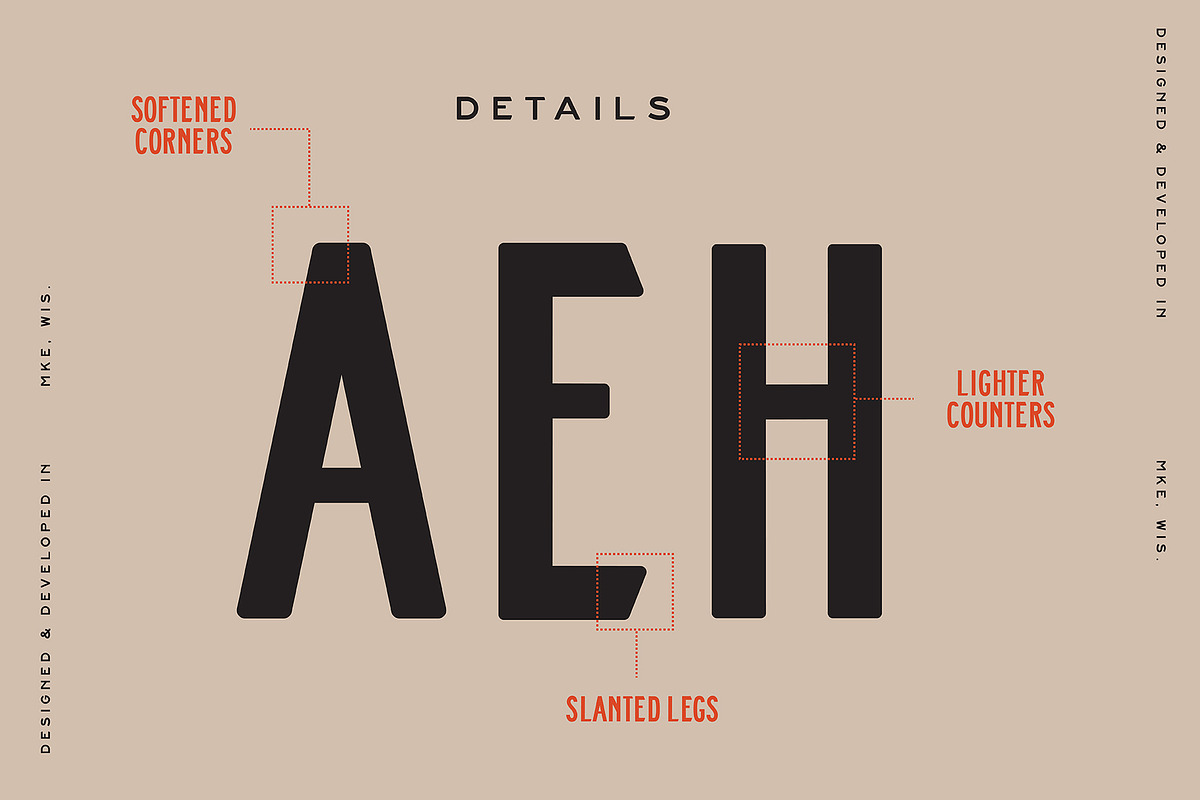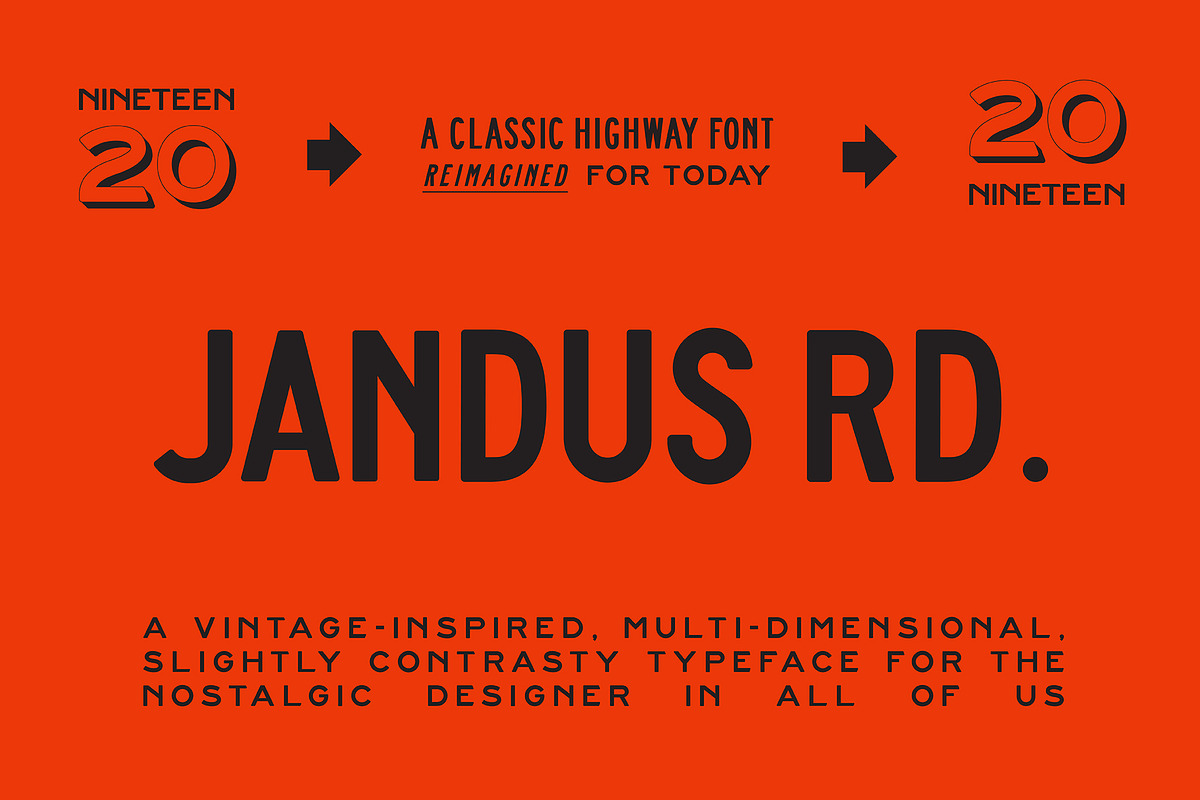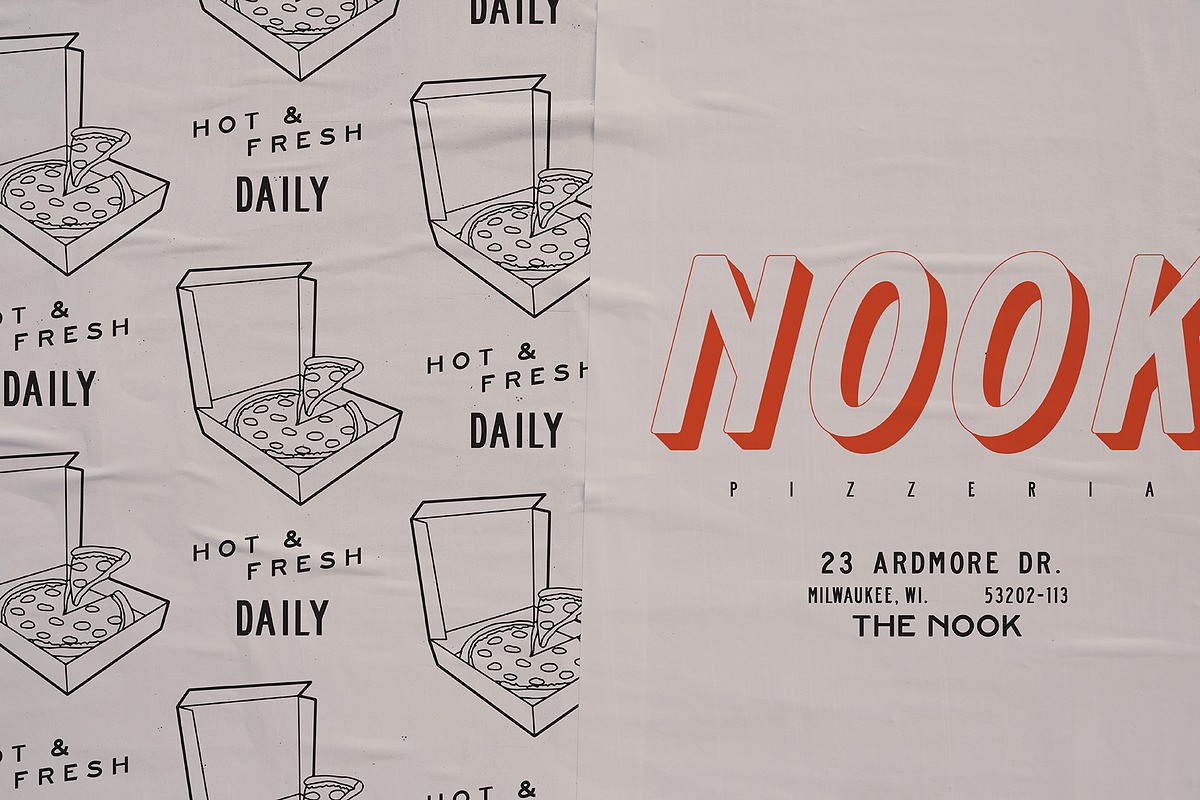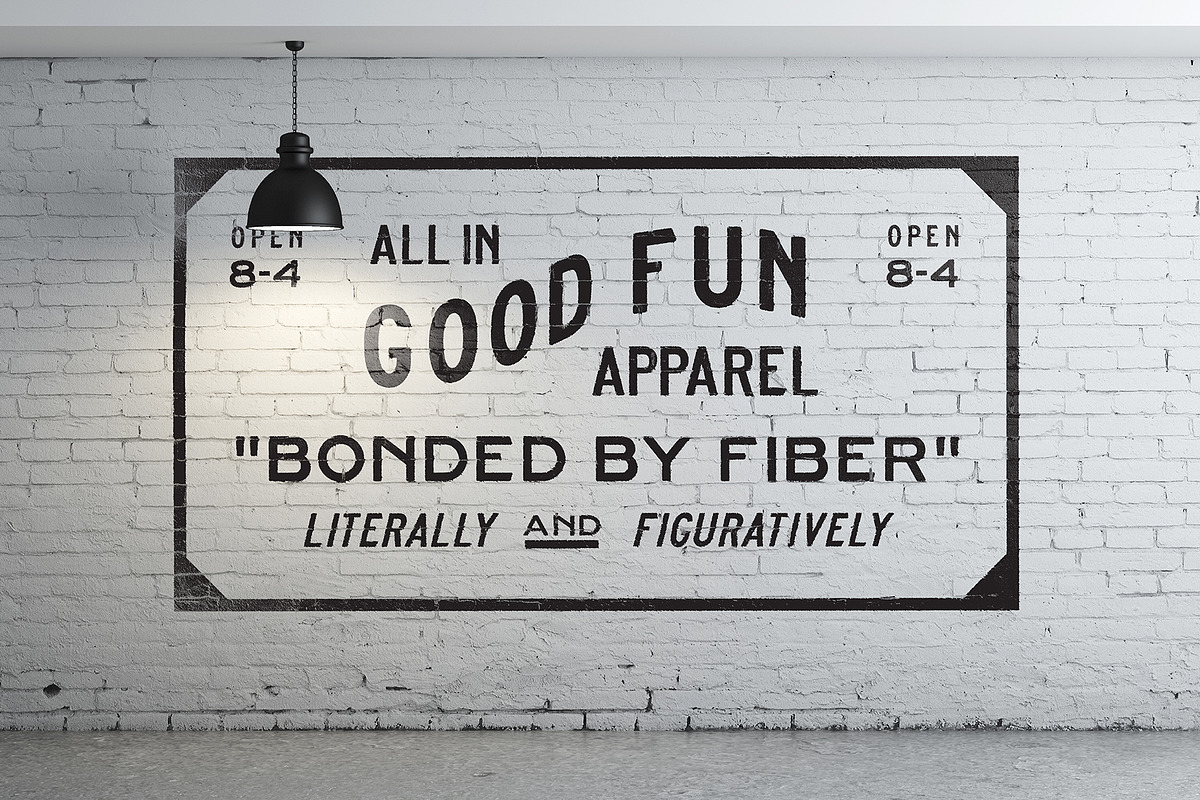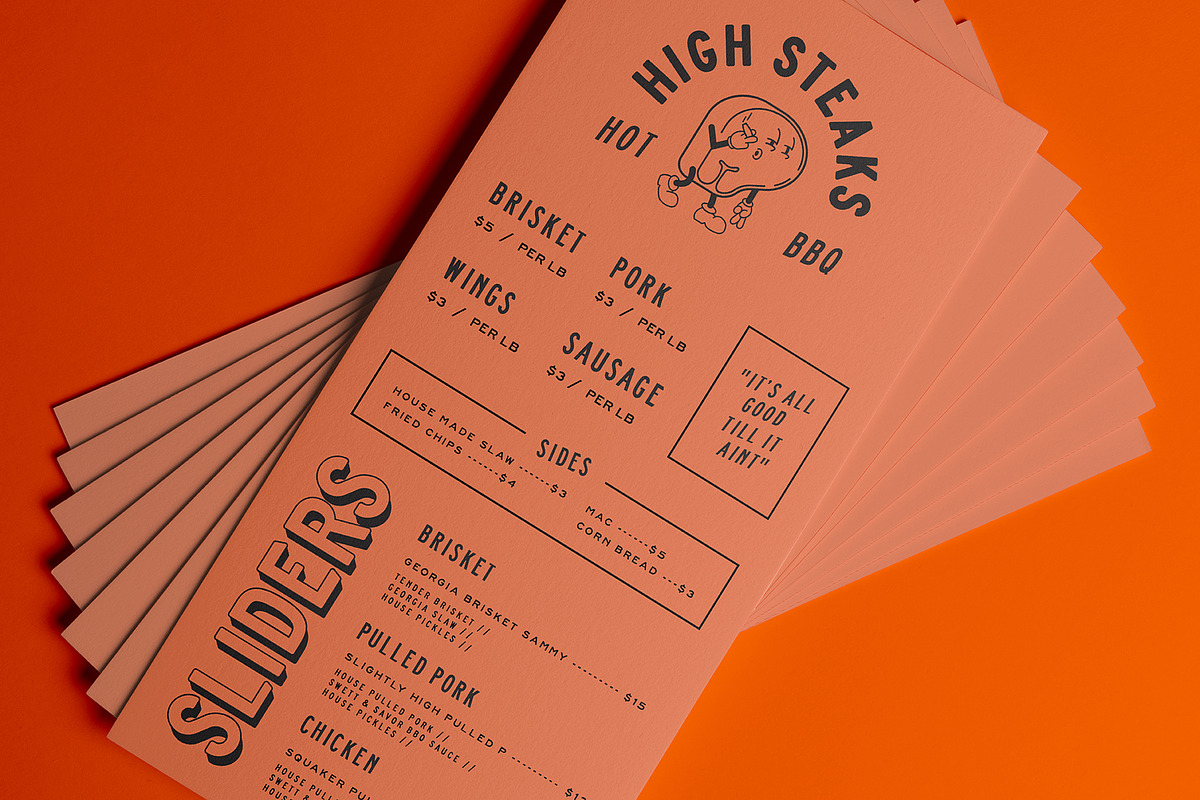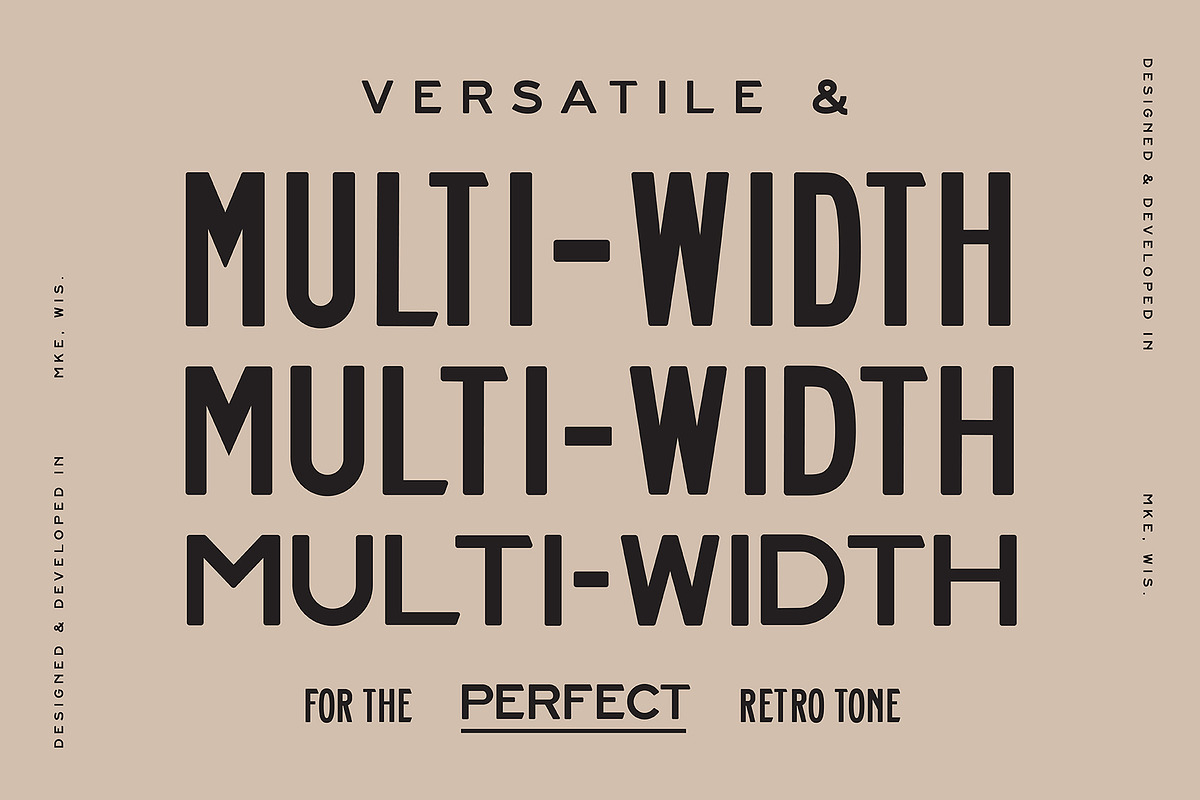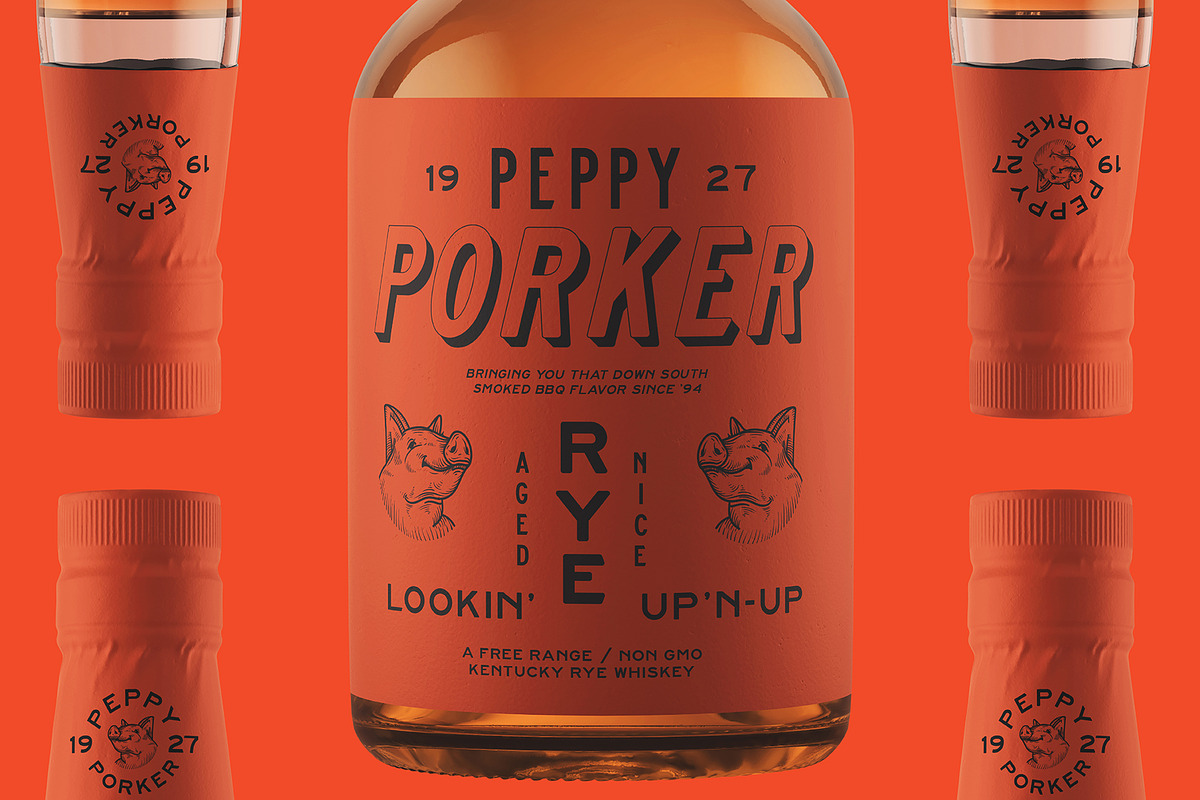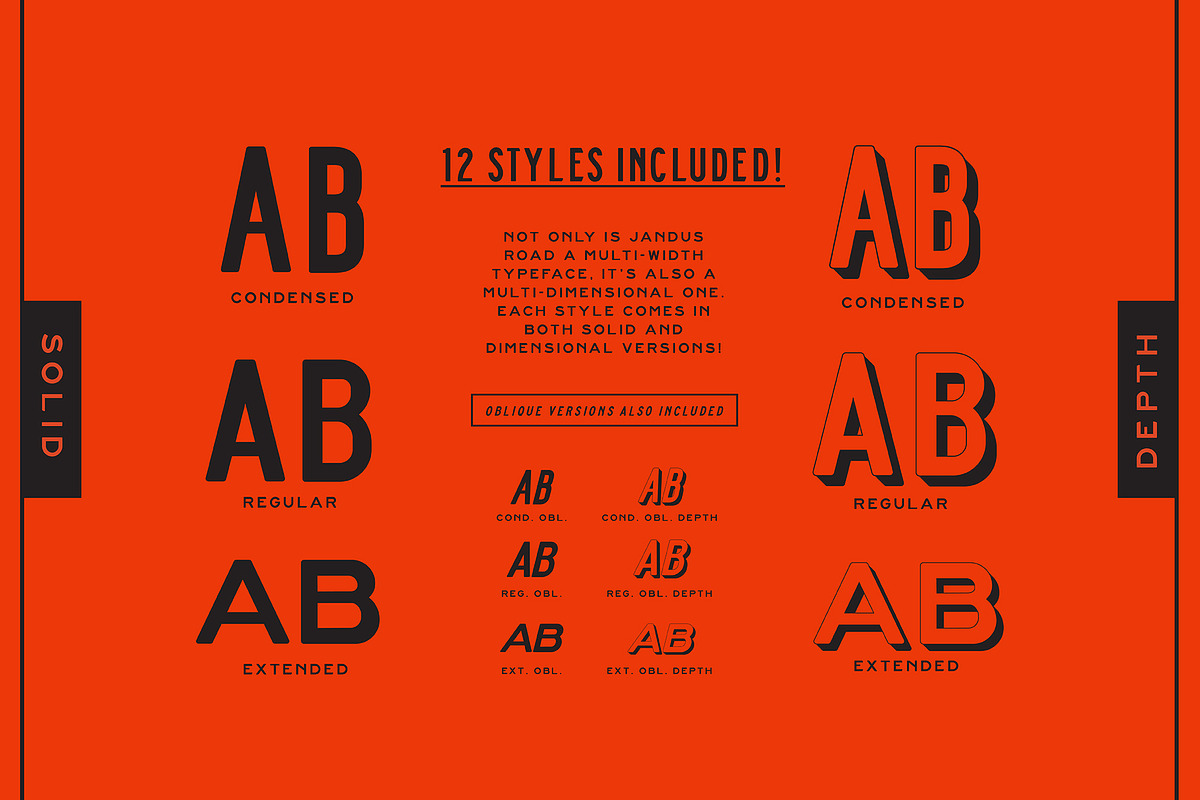
Jandus Road - A Highway Display Font
Jandus Road is a modified display typeface derived from a type style that many of us may recognize, but are unable to pinpoint. It’s a style that we all interact with on a daily basis, and we rarely take notice. The category? US Highway fonts. That's right, there is an entire category of fonts developed and designed specifically for traffic control devices and signage.
Jandus Road takes the simplicity of a Highway font and infuses vintage flare with softened corners, slight width variation, slanted leg details, and raised counters. A perfect balance of legibility and mid-century design influences.
Create bold typographic statements with 12 different font styles. Perfect for packaging and branding projects looking to create bold impact with a retro flare.
12 different type styles
Oblique Depth (3D effect)
Condensed Depth (3D effect)
Condensed Oblique Depth (3D effect)
Extended Oblique Depth (3D effect)
Originally developed in the 1940’s, Highway Gothic was developed by the U.S. Government to standardize all typography used on highway signage. Before this standardization, road signage was primarily hand painted and was increasingly illegible as automobiles began to move faster. Highway Gothic was designed with minimal thick-to-thin contrast, large open counters, and distinct characters. Perfectly legible at highway speeds.